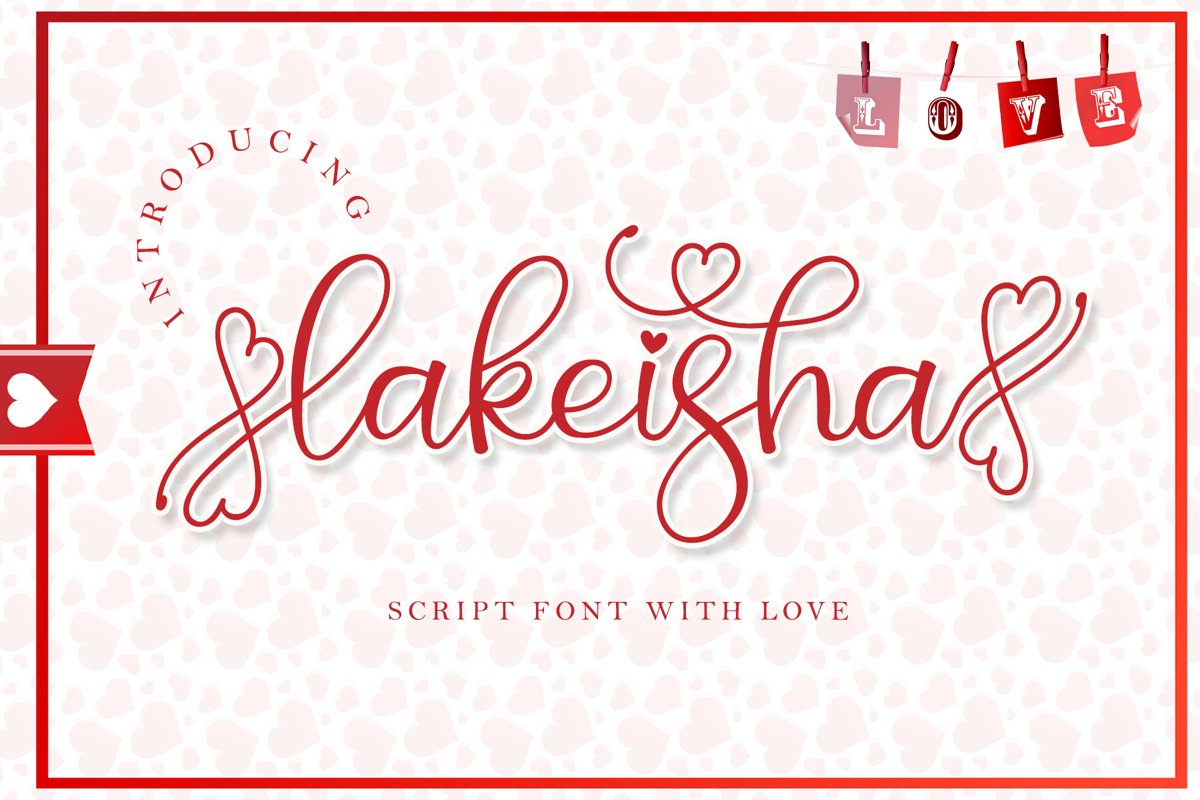
Lakeisha is lovely script font with modern casual-loved themed touch. This font will add lovely feeling into your design.
Lakeisha is such the perfect script for any kind of your project, such as advertisements, branding, graphic design, quotes, wedding design, logo for online or offline business, photography, and others. Make your business more awesome!
Lakeisha